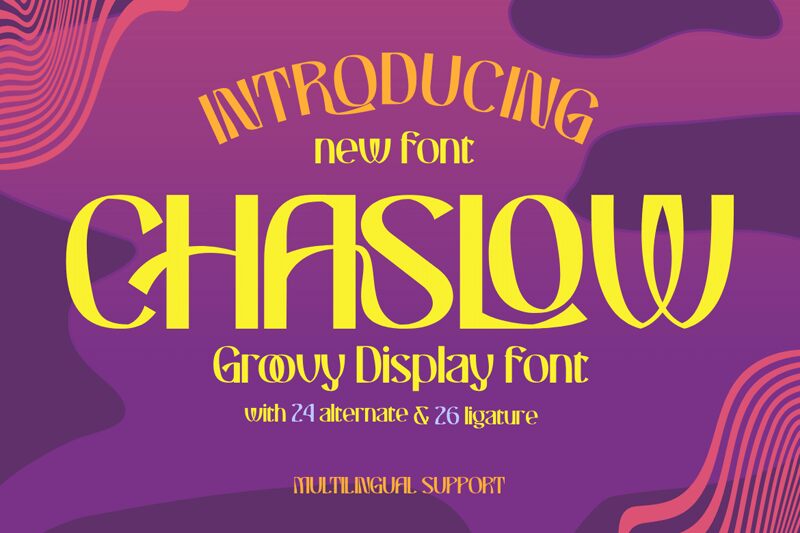
Chaslow, a captivating display font crafted by Twinletter, exudes a groovy, retro-inspired allure. With its striking, bold letterforms and playful, organic curves, this font radiates a sense of energy and dynamism. The distinct character shapes and textural elements lend Chaslow a visually striking, almost three-dimensional quality, making it a versatile choice for a wide range of design applications.
Chaslow's charismatic personality shines through in its ability to command attention and evoke a sense of nostalgia. Whether used for headlines, logos, or attention-grabbing typography, this font's captivating aesthetic ensures it will leave a lasting impression on viewers. Its adaptability and unique visual language make Chaslow an excellent selection for projects seeking to convey a sense of vintage charm, bold individuality, or a retro-futuristic aesthetic.